Bijou Type
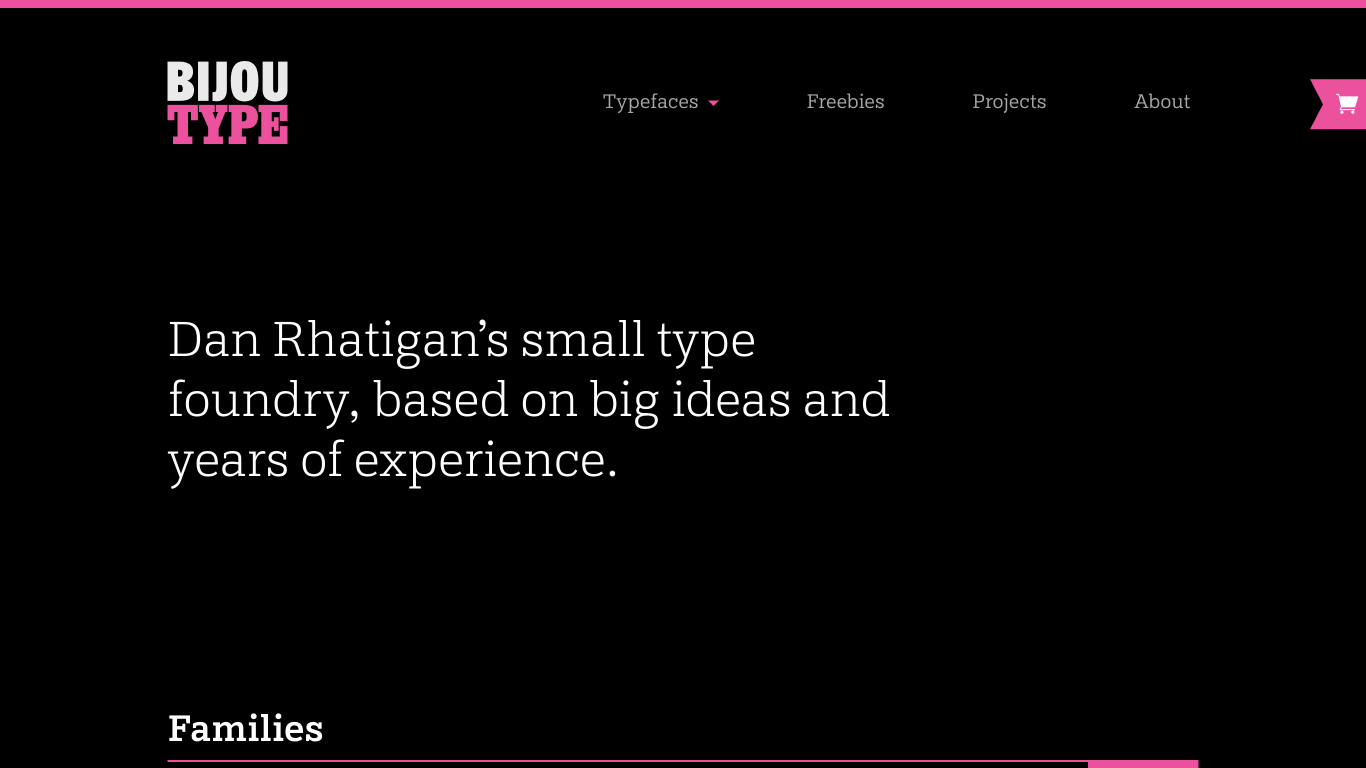
Bijou Type is a Portland-based type foundry established by experienced typographer Dan Rhatigan. The foundry specializes in crafting fine typefaces that blend traditional craftsmanship with contemporary design sensibilities. Notable releases include Buckram, a readable, hard-working slab serif; Gloridot, a distinctive display typeface; and Ringold, a versatile family encompassing Sans, Slab, Soft, Clarendon, and Gym styles.